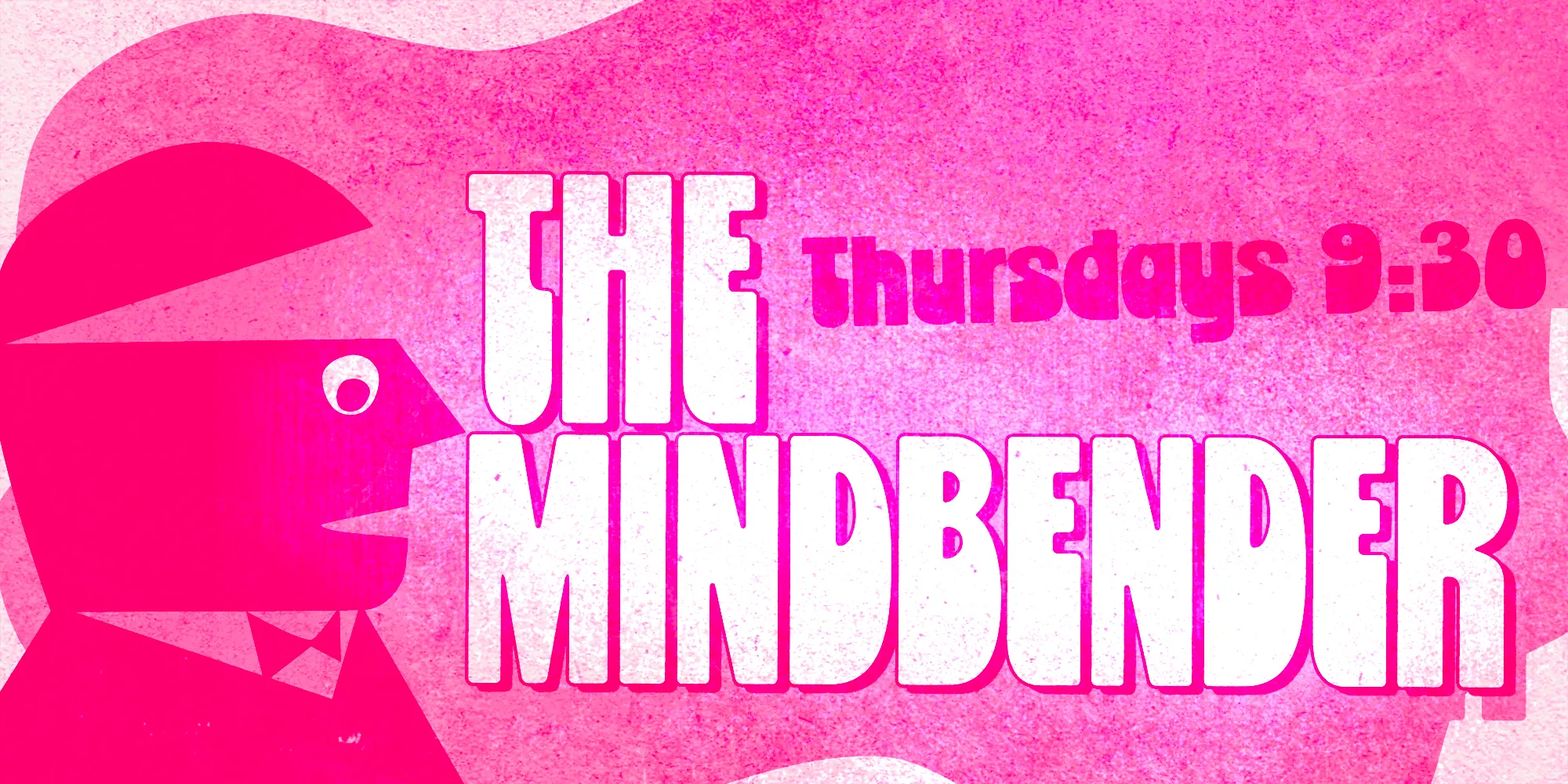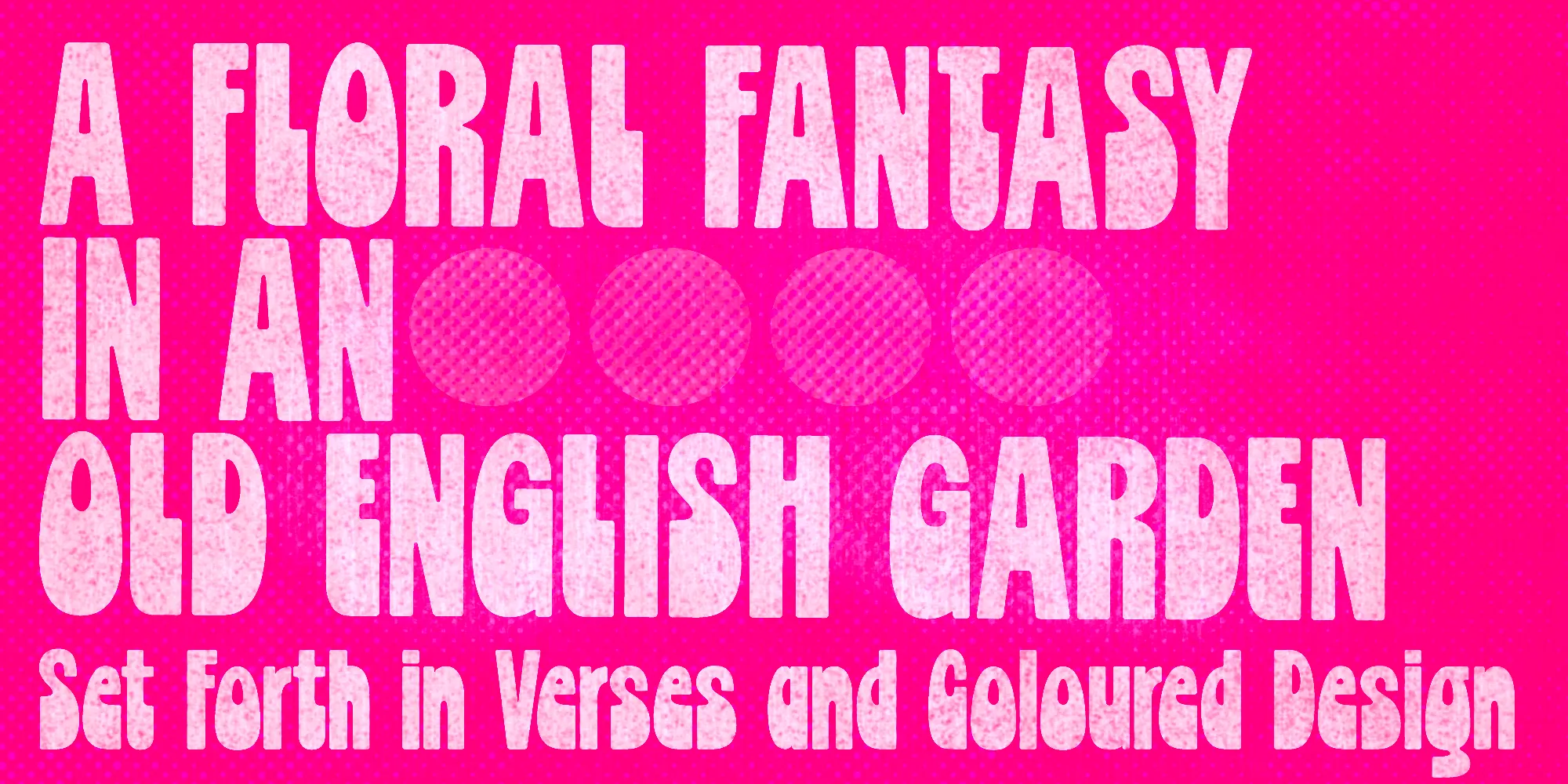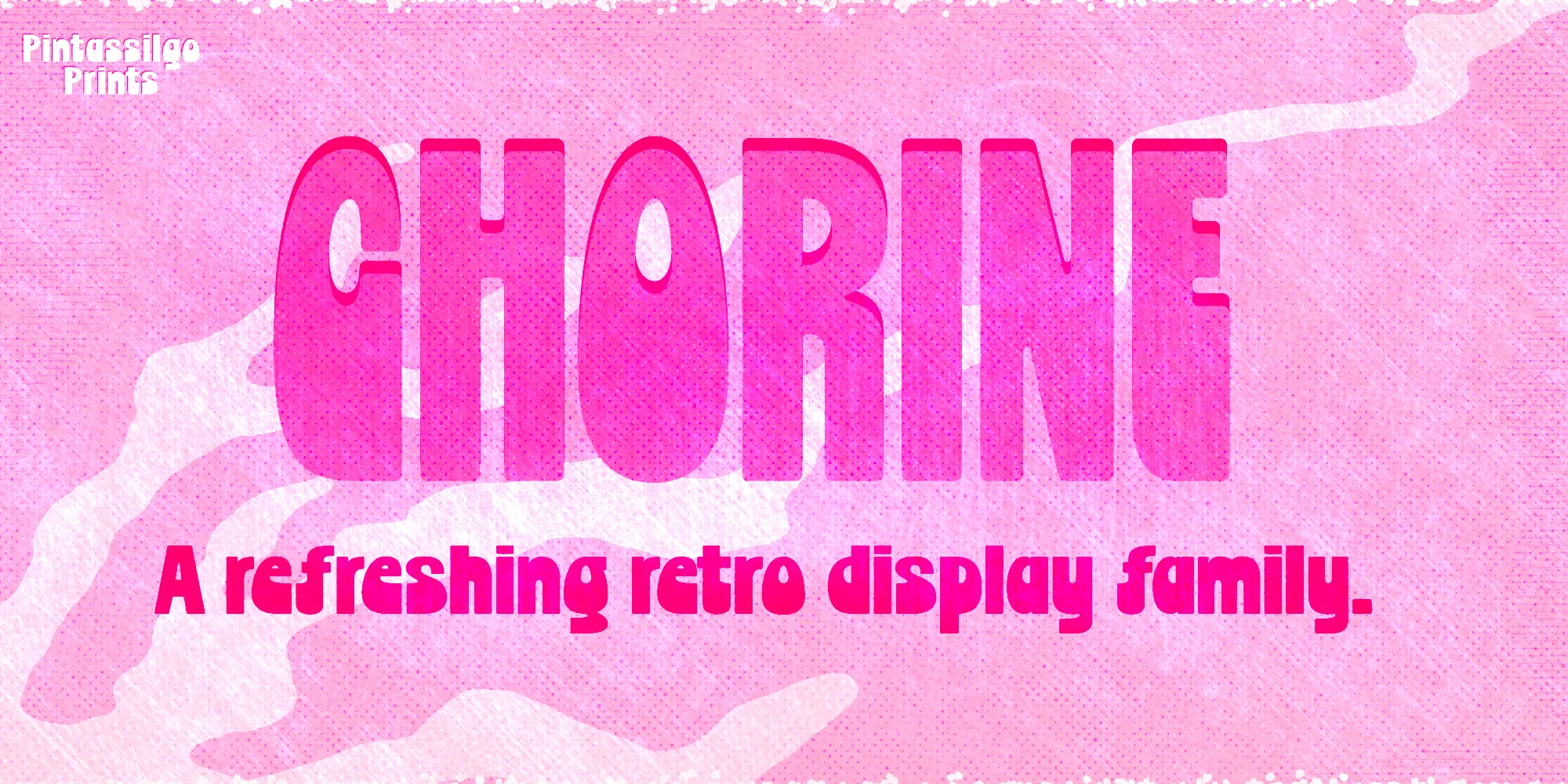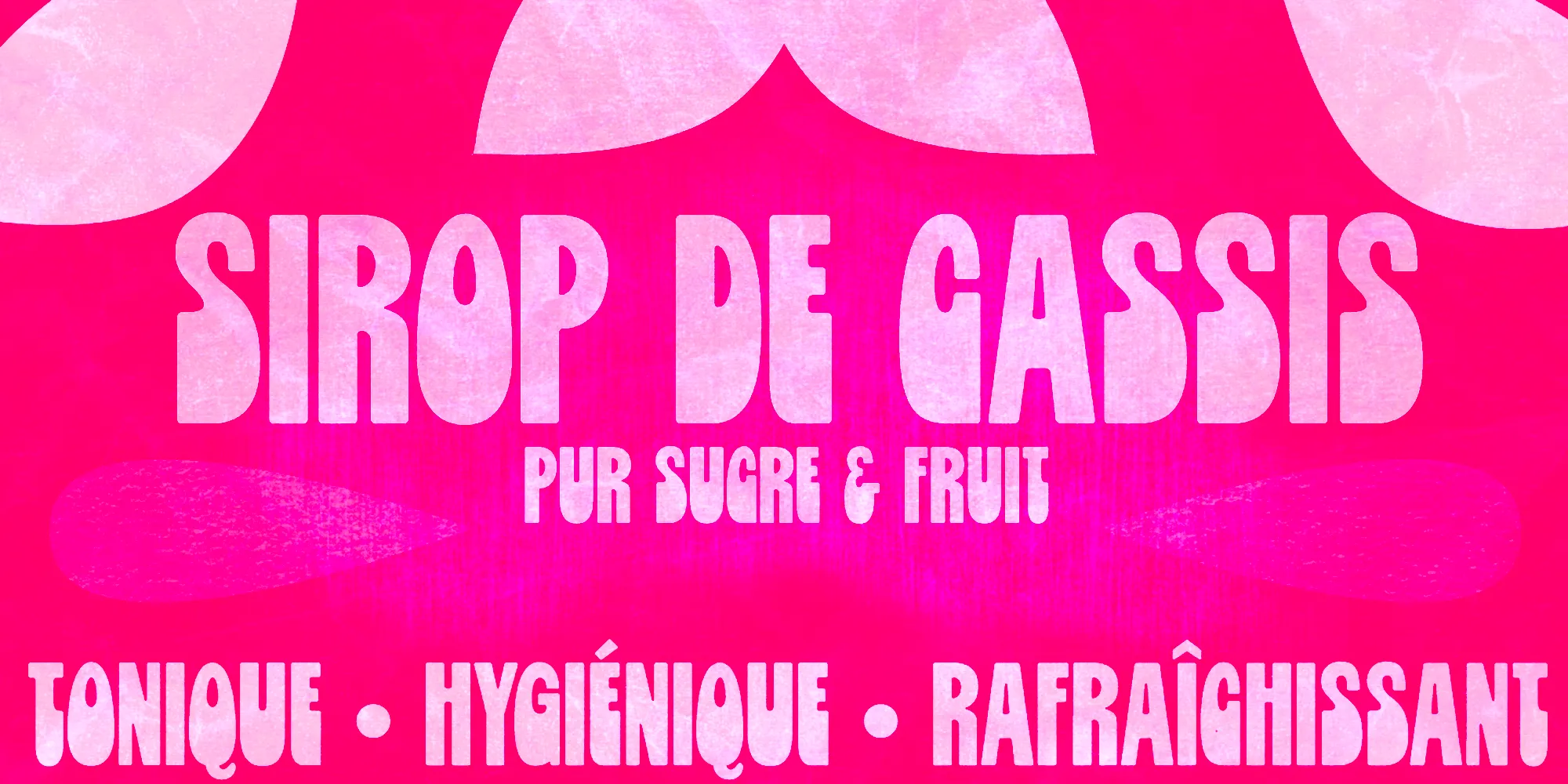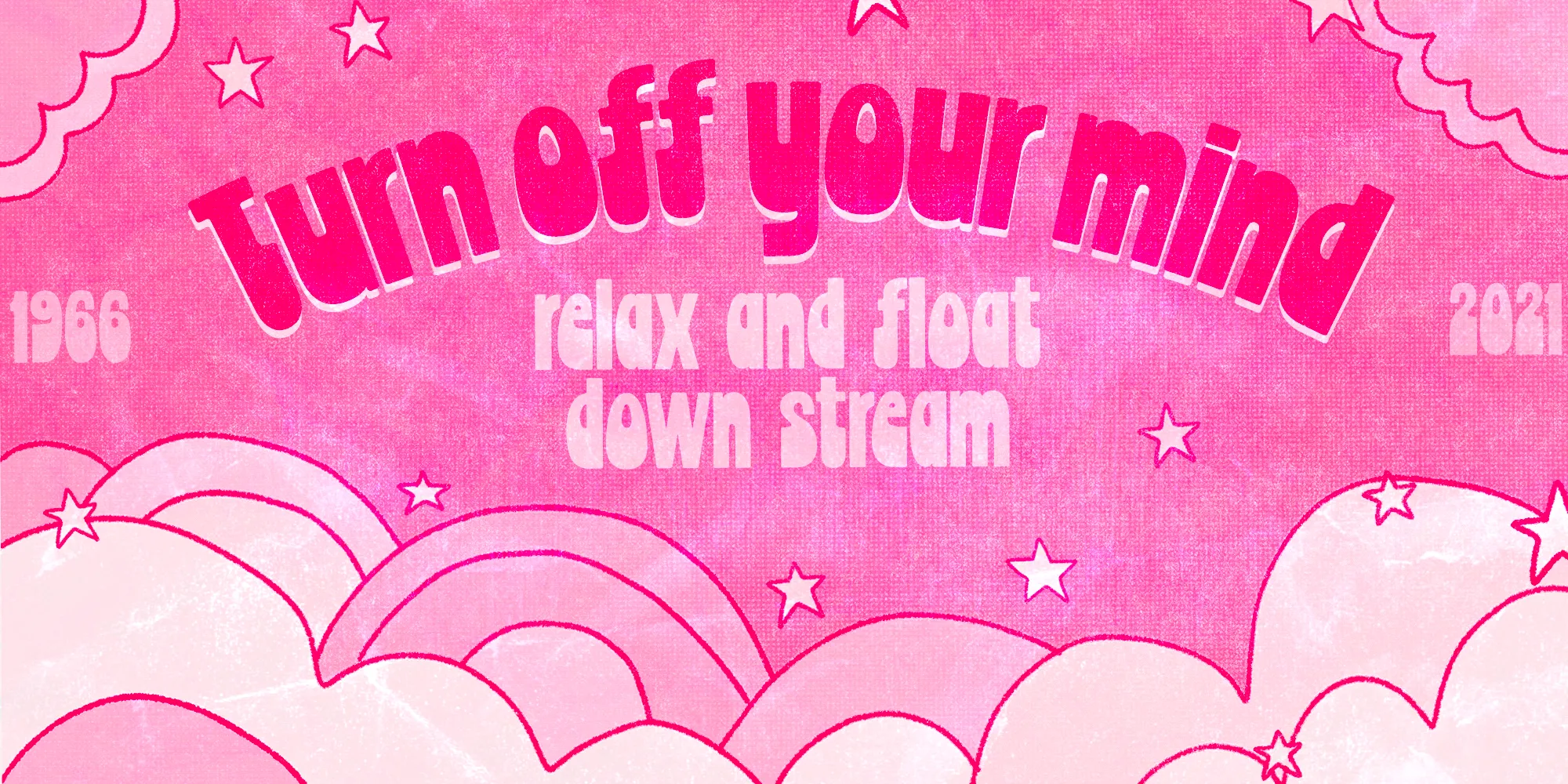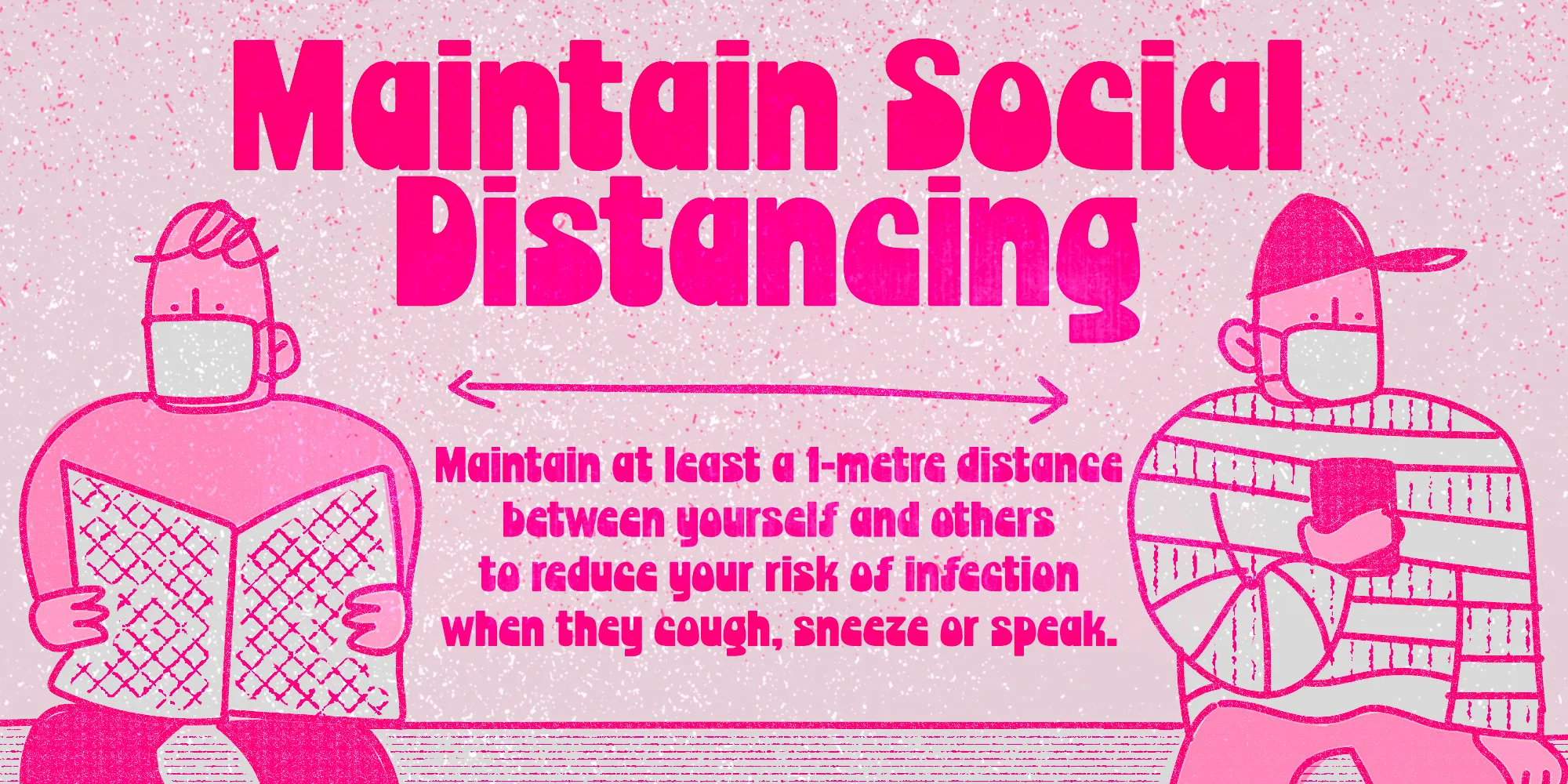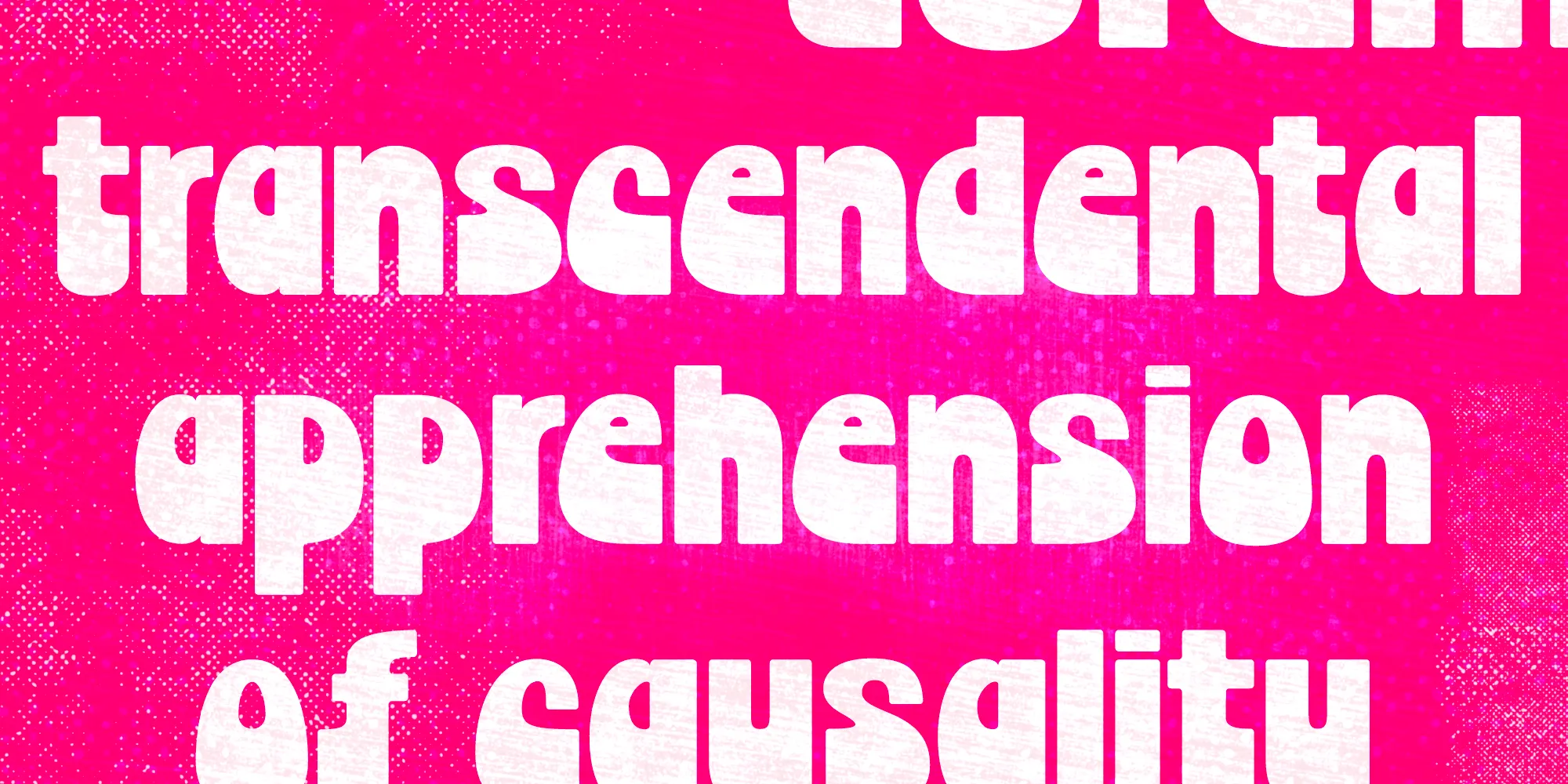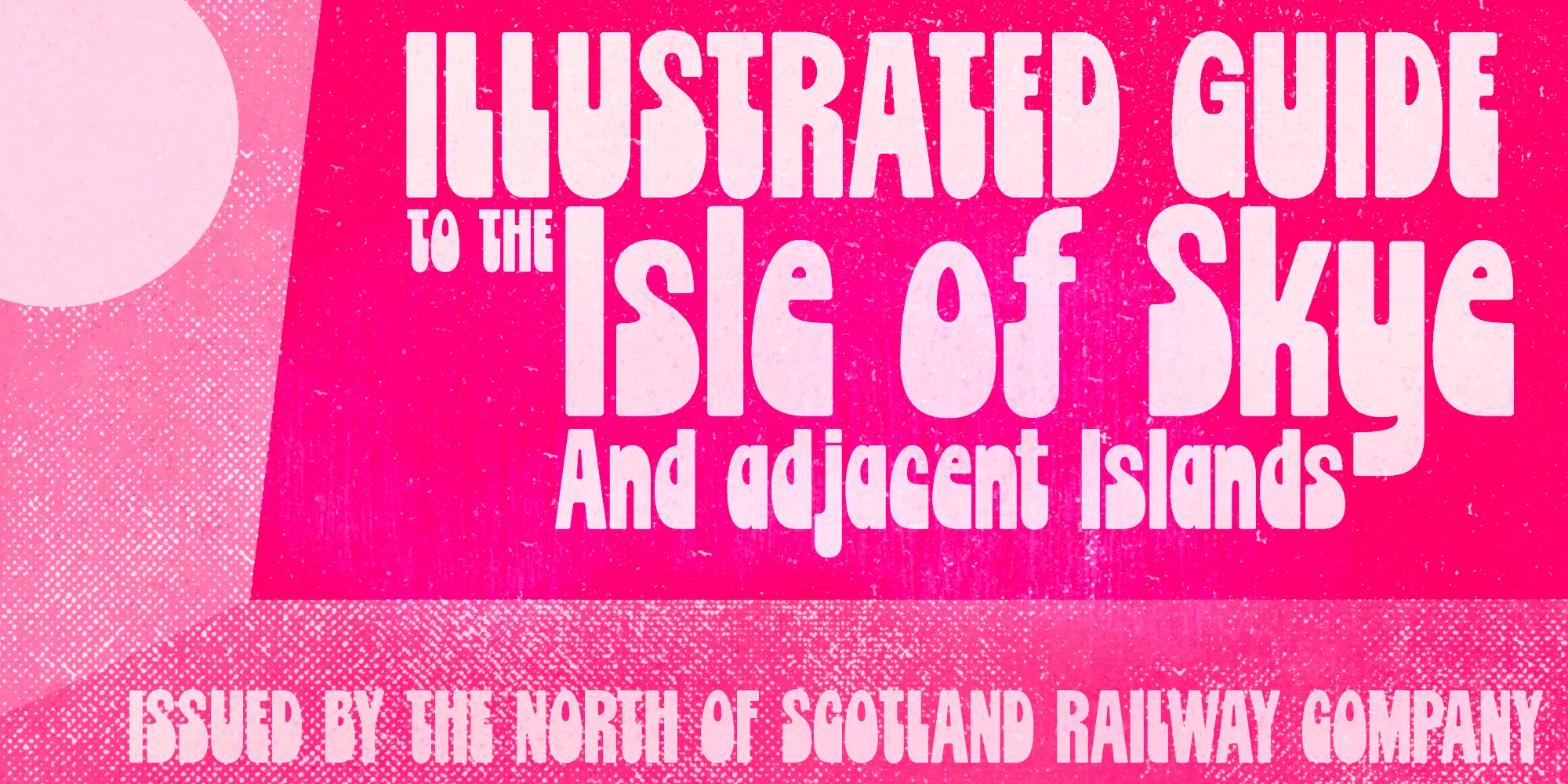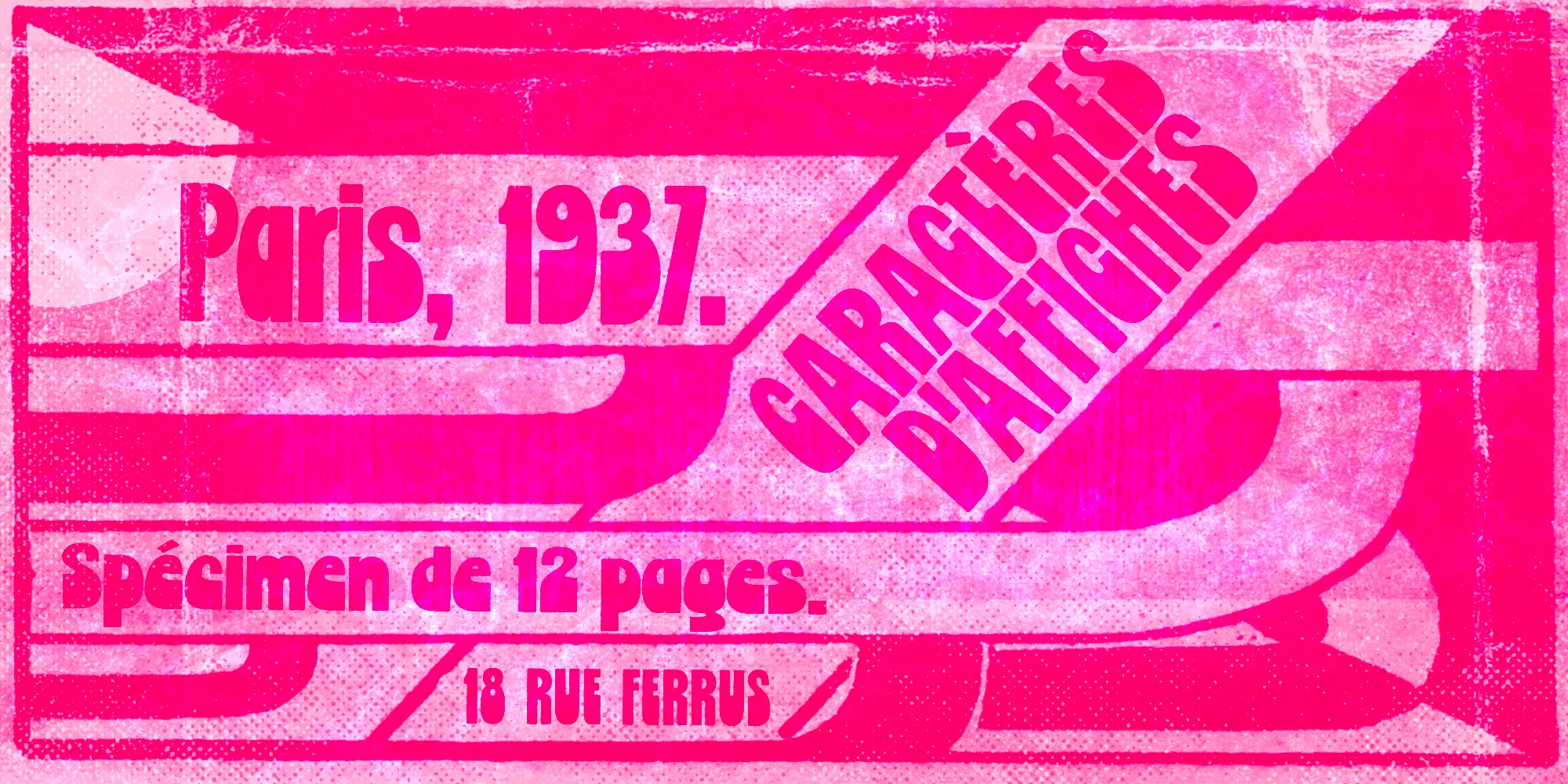
Chorine Font Family
• Chorine Regular
• Chorine Large
Chorine
Chorine is a bold retro typeface that blends style with charm. With two cuts to choose from, it’s well-suited for vintage-inspired, psychedelic, or nostalgia-driven work. such as posters, album covers, or playful branding.
• Common Ligatures
• Fractions
• Ordinal Numerals
• Superscript